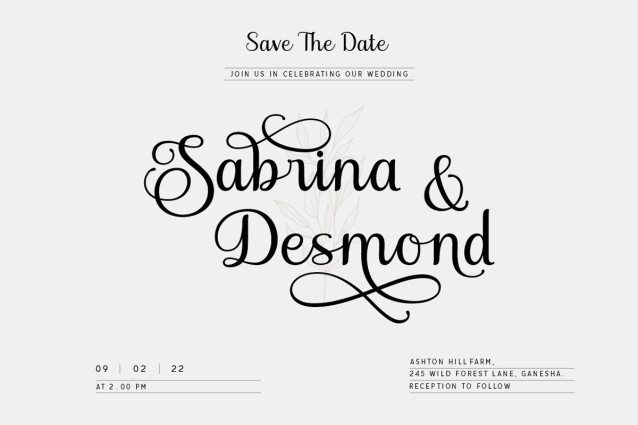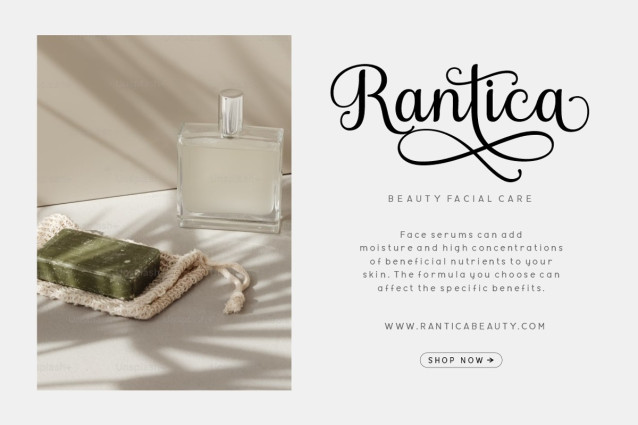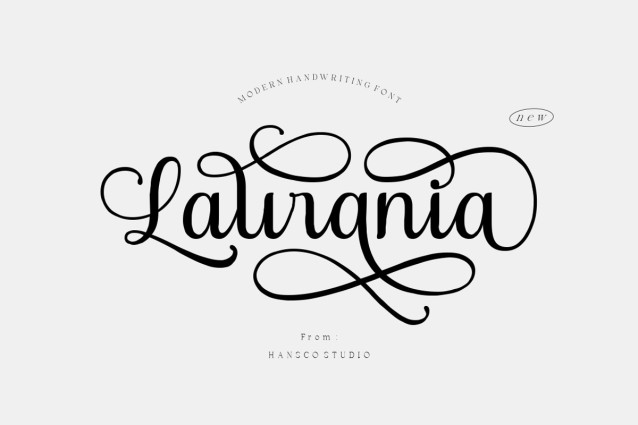
Laurania Font
Laurania Font is a cute and modern handwriting font carefully created with a touch of elegance. Whether you’re looking for fonts for Instagram or for DIY projects, this font will turn any creative idea into a true piece of art!. This font is perfect also for creating print templates like posters, branding, quotes, blog titles, fashion, invitations, greeting cards, business cards, clothing, stationery or anything else. Comes with a full uppercase, lowercase, numbers, punctuation and with extensive language support, it’s going to be a very usable addition to your project.